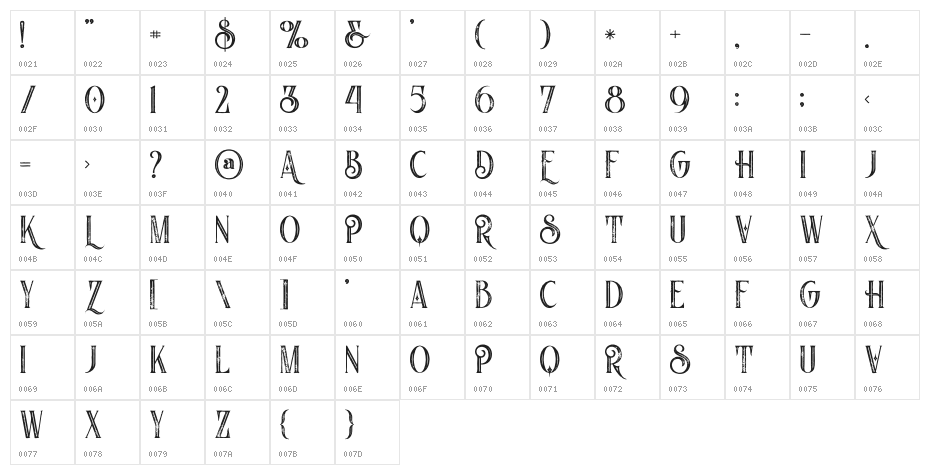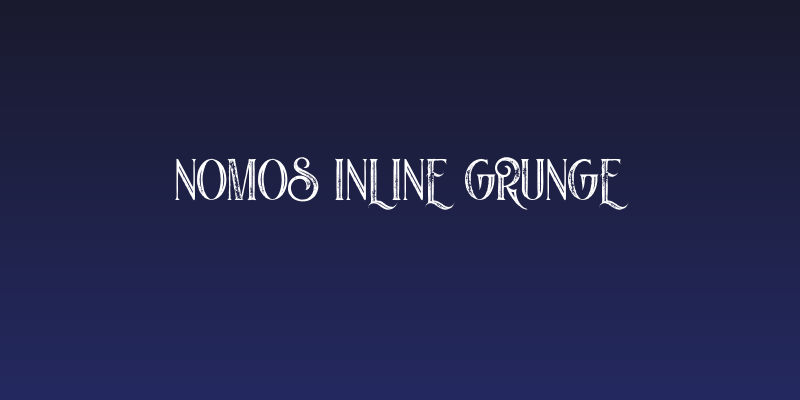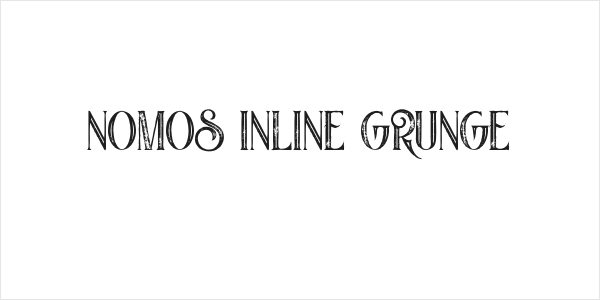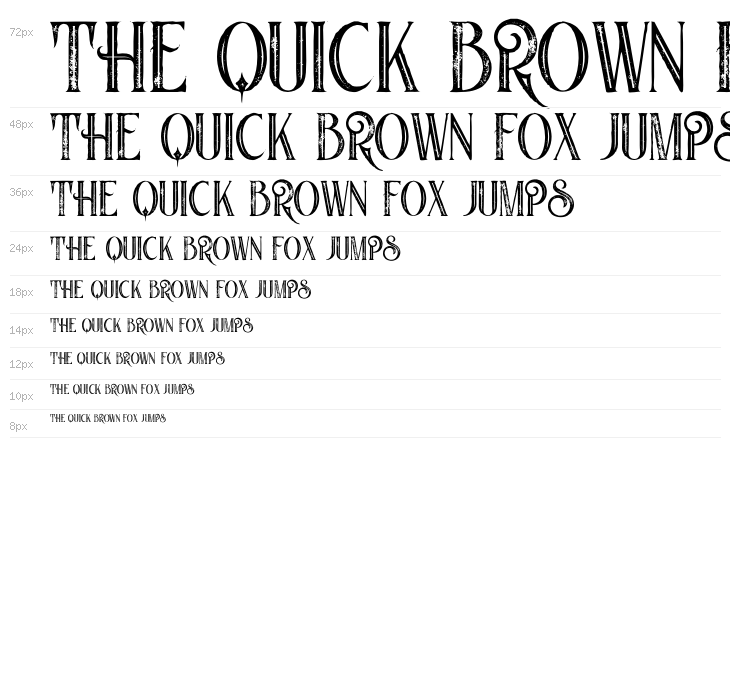
Nomos Inline Grunge Font
Nomos Inline Grunge Description
This font features a distinct grunge aesthetic with an inline style that adds depth and texture to each character. The uppercase letters are bold and dramatic, with unique flourishes and distressed details that give them a vintage, worn look. The lowercase letters maintain the same grunge style, offering a cohesive appearance across the alphabet. Numbers and special characters are designed with the same attention to detail, ensuring consistency throughout. The font's overall style is decorative and eye-catching, making it ideal for projects that require a bold statement.
| Overall Style | Vintage, Decorative |
| Proposed Projects | Ideal for music album covers, posters, vintage-themed designs, and branding that requires a bold, edgy look. |